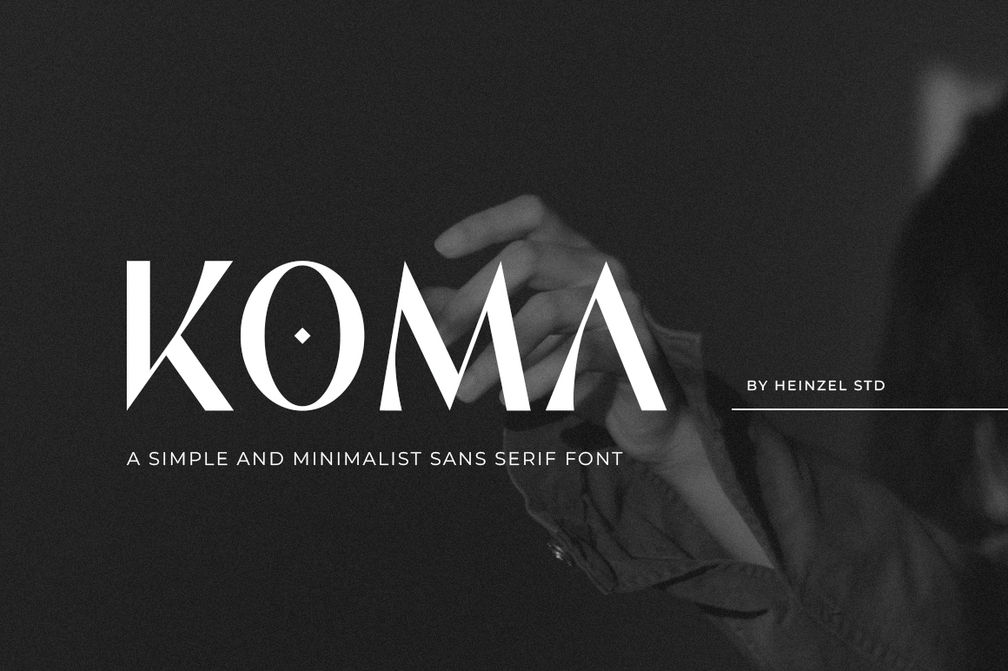
Koma Sans Serif Font
Koma – Minimalist Sans Serif Font
Koma is a sleek and modern all caps sans serif font designed for simplicity and elegance. With clean lines, sharp angles, and a minimalist aesthetic, Koma is perfect for creating bold branding, stylish logos, magazine headlines, fashion projects, posters, product packaging, and website designs.
This versatile font is built with a contemporary geometric style, making it ideal for both digital and print projects. Each glyph is carefully crafted to maintain legibility while adding a sophisticated, modern edge.
All Caps Glyphs (uppercase + alternates)
Minimalist Sans Serif Design
Perfect for Logos, Branding, Editorial & Web
Modern and Elegant Typography
- Multilingual support for various languages
Koma is more than just a typeface—it’s a statement of style. Elevate your creative projects with this clean and timeless font.